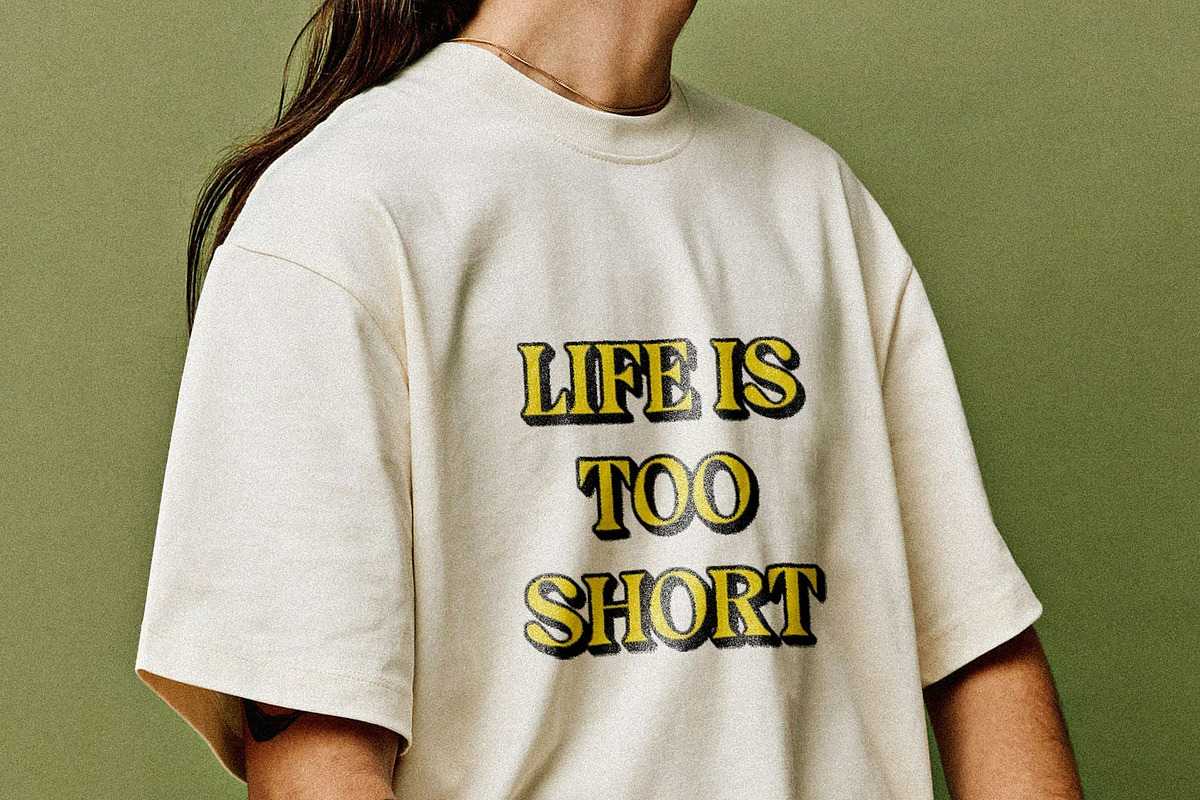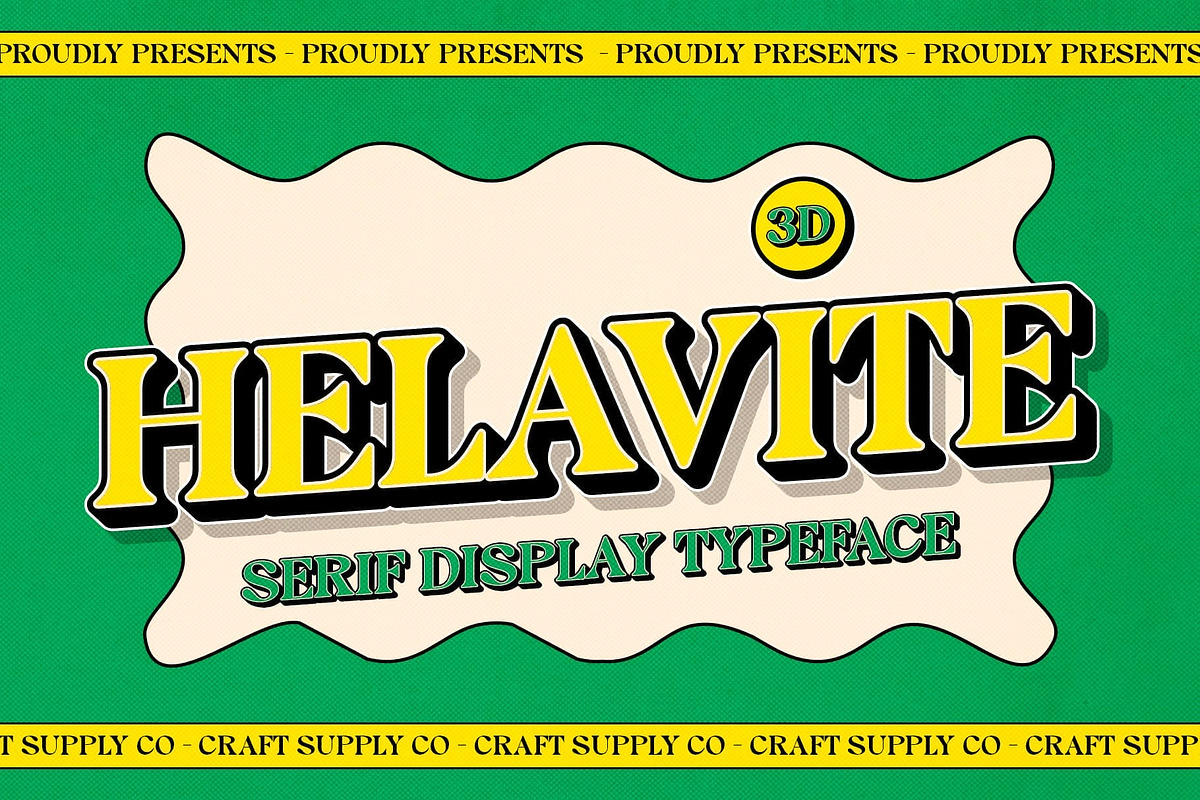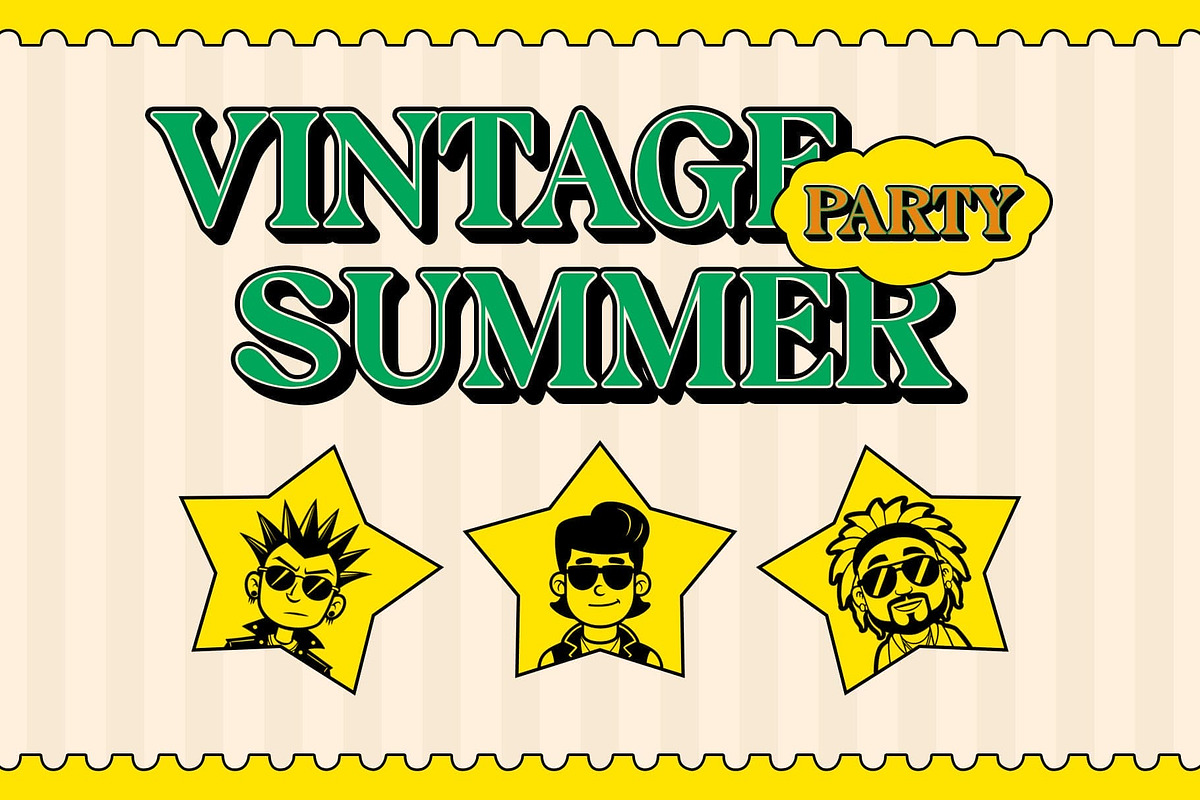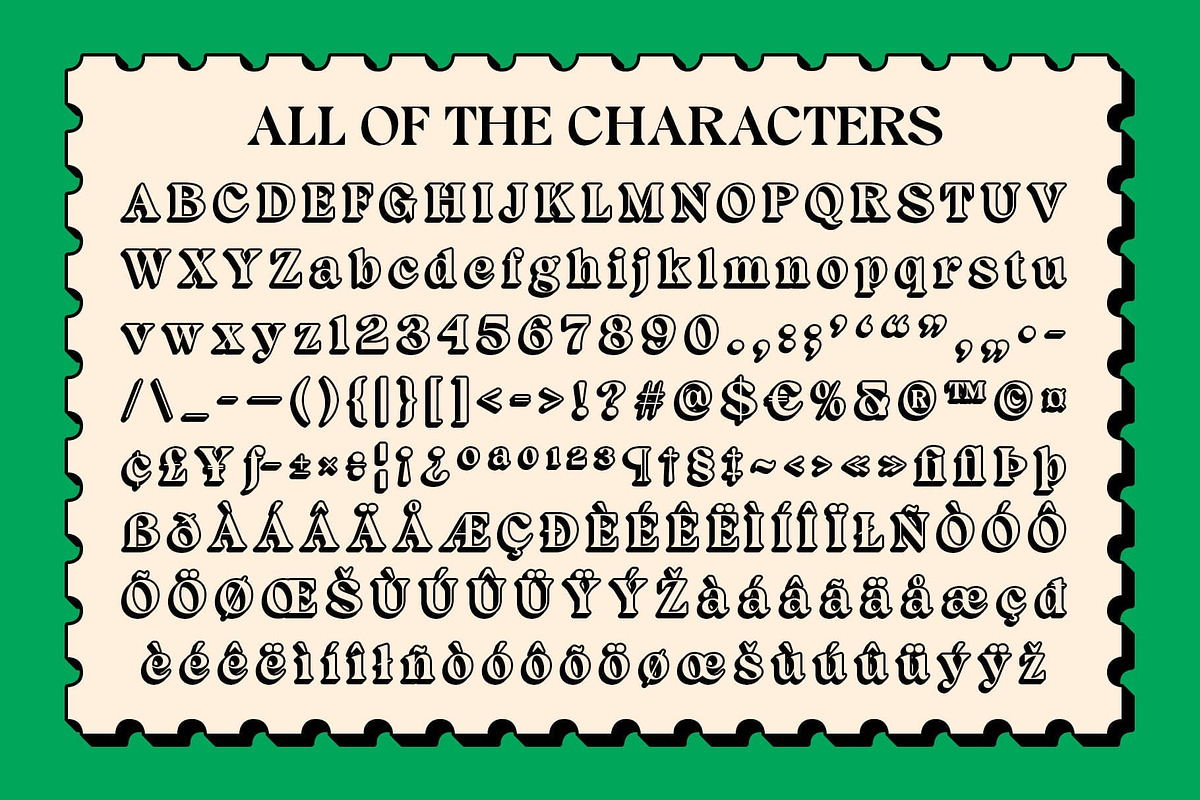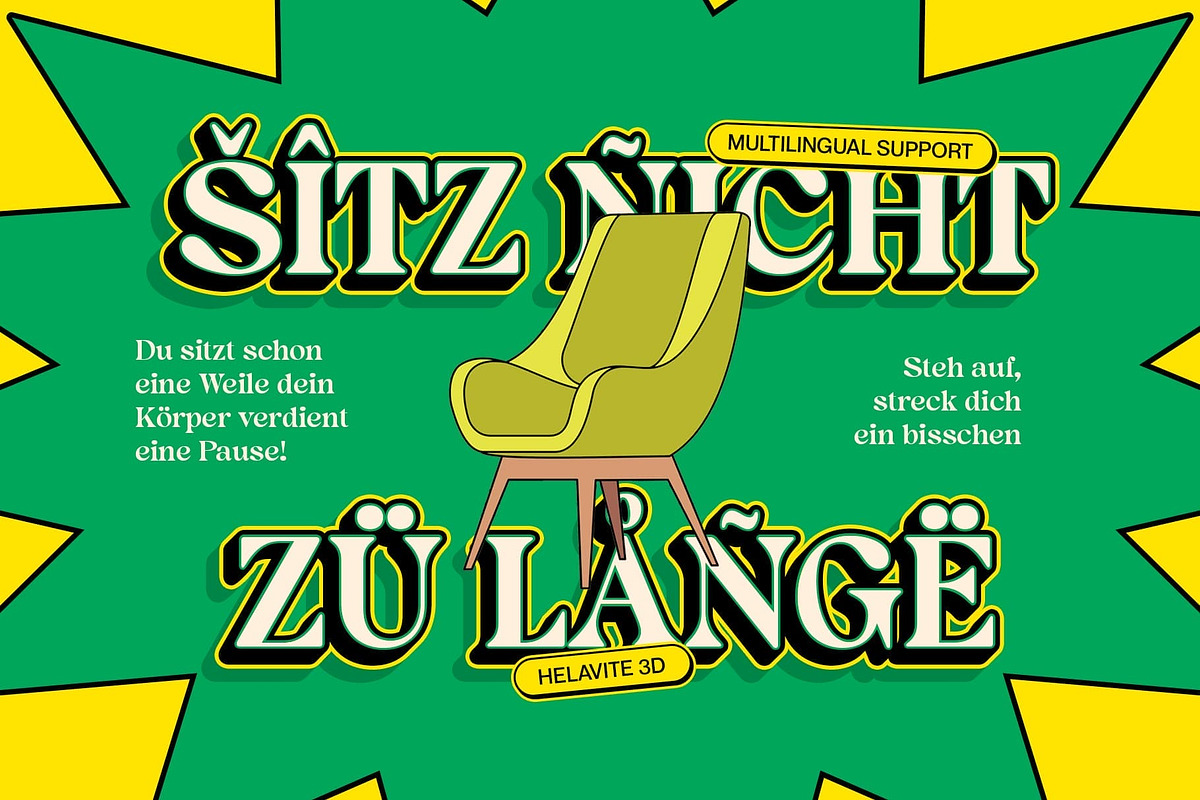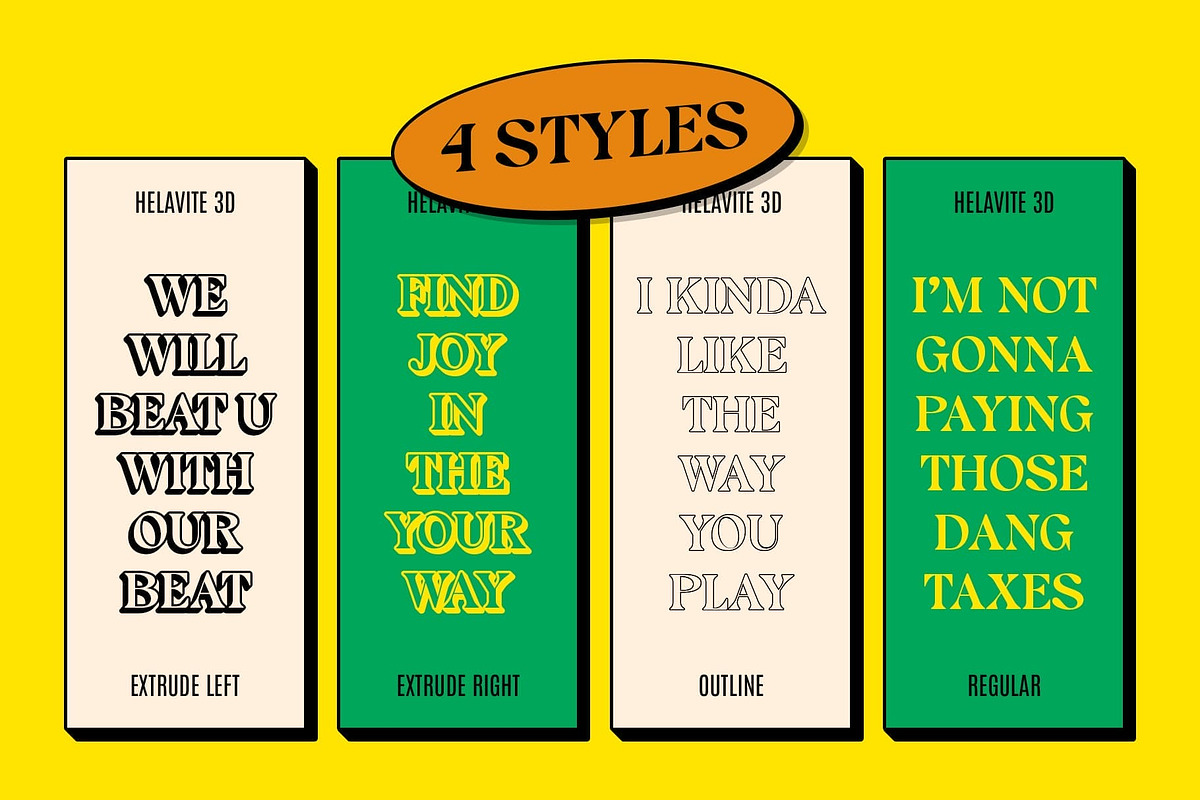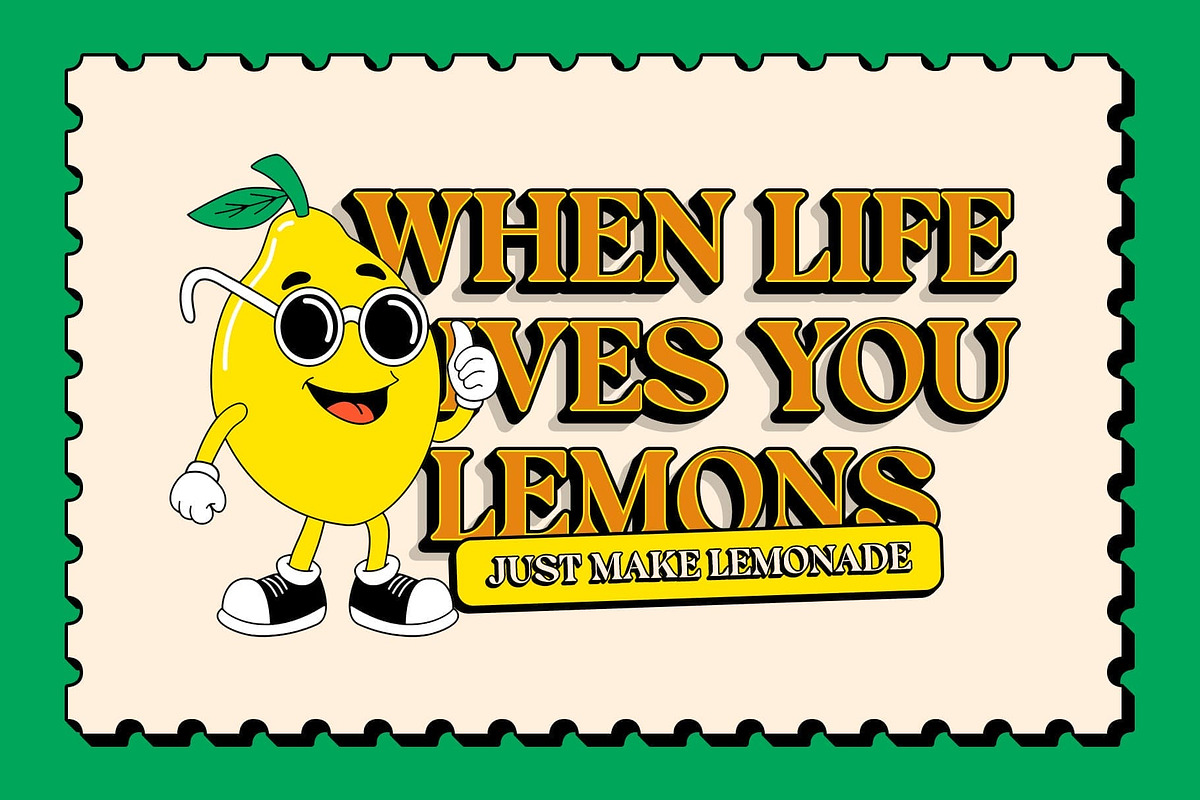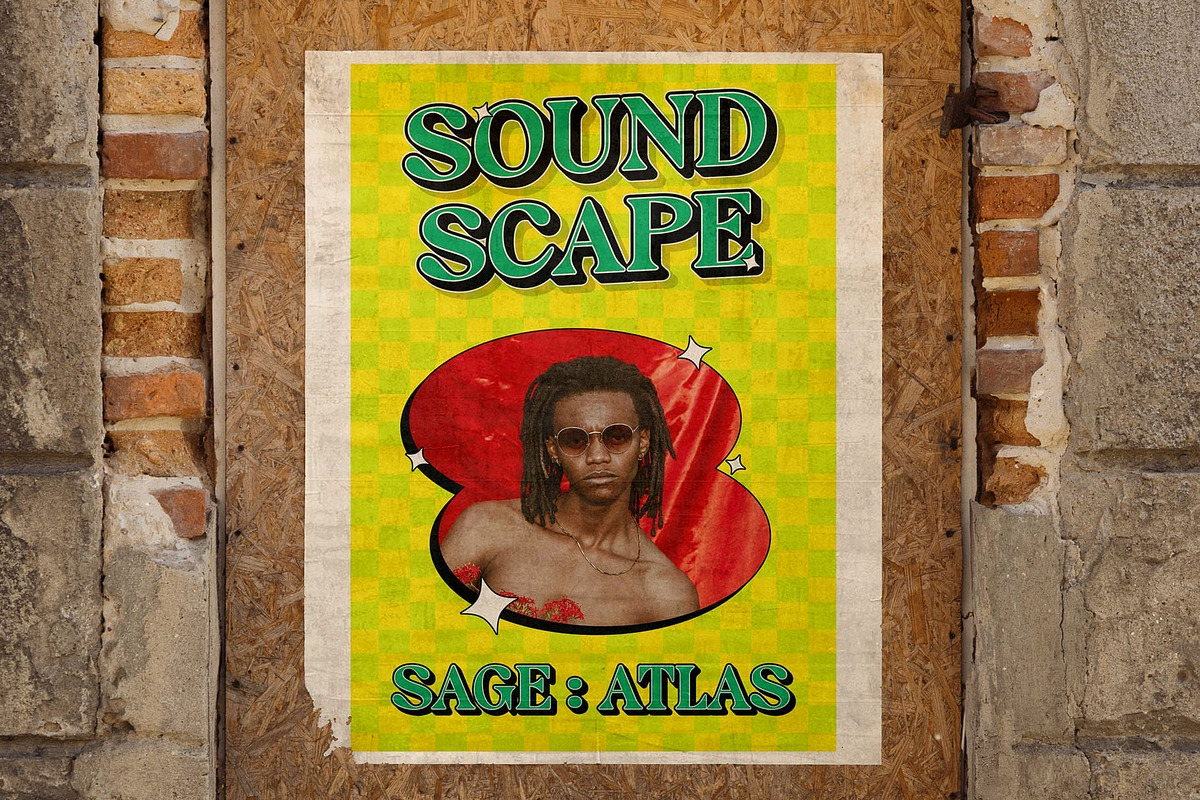
Helavite 3D
Helavite 3D Font – Modern Elegance in Every Dimension
Sleek Serif Meets Dimensional Design Helavite 3D is a modern serif font that fuses minimalist structure with a subtle 3D effect, creating a look that is both stylish and sophisticated. Its crisp lines and refined forms deliver clarity and impact, ideal for upscale visual communication.
Clean and Contemporary Appeal Designed with modern sensibilities in mind, Helavite 3D offers a minimalist aesthetic that feels fresh and timeless. The clean serif strokes and graceful typographic details lend it a professional tone suitable for high-end branding and editorial layouts.
Depth Without Distraction The subtle 3D effect brings visual interest and dimension without overwhelming the design. This restrained depth adds a dynamic presence to titles and headlines, enhancing visual hierarchy while maintaining a sleek, elegant feel. The 3D effect in Helavite 3D gives the font depth and richness without overshadowing its minimalist appeal. The subtle effect creates a sophisticated visual experience, adding interest and dimension to the design while maintaining clarity and elegance.
Perfect for Premium Projects Helavite 3D is versatile and ideal for a range of design applications that require a refined, modern touch. From luxury branding and upscale editorial projects to sleek digital designs, this font’s elegant form and subtle 3D effect make it an excellent choice for projects that aim for both professionalism and visual impact
- Helavite Regular
- Helavite Outline
- Helavite Extrude Right
- Helavite Extrude Left